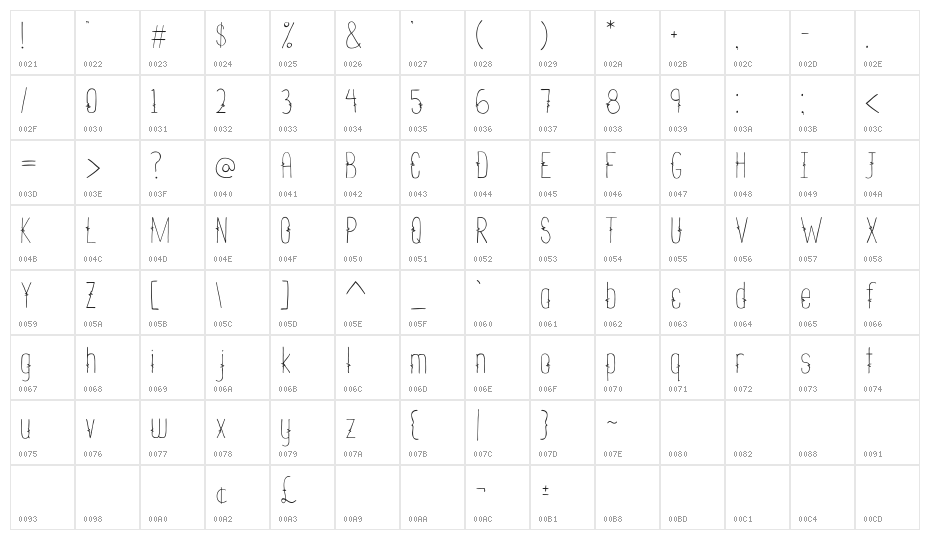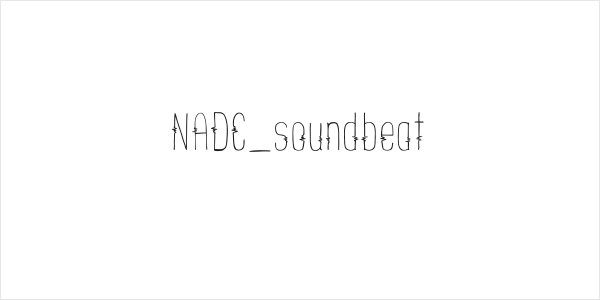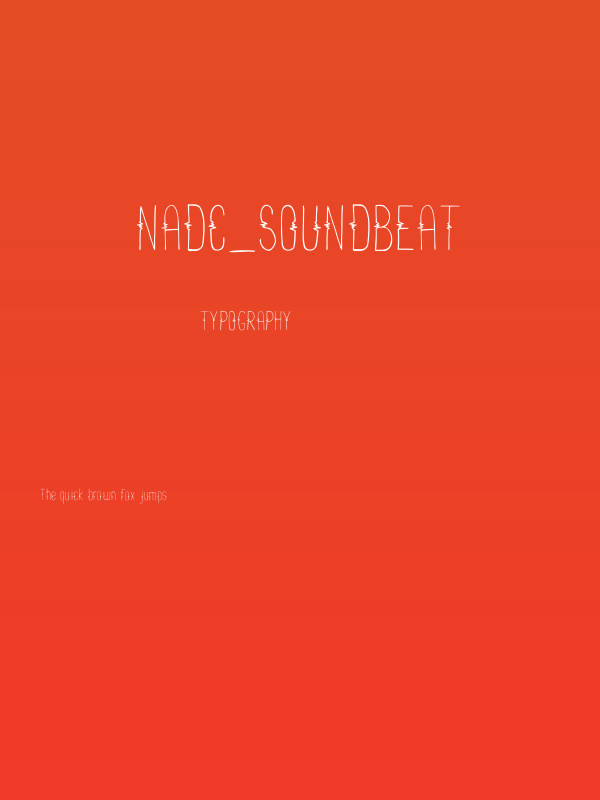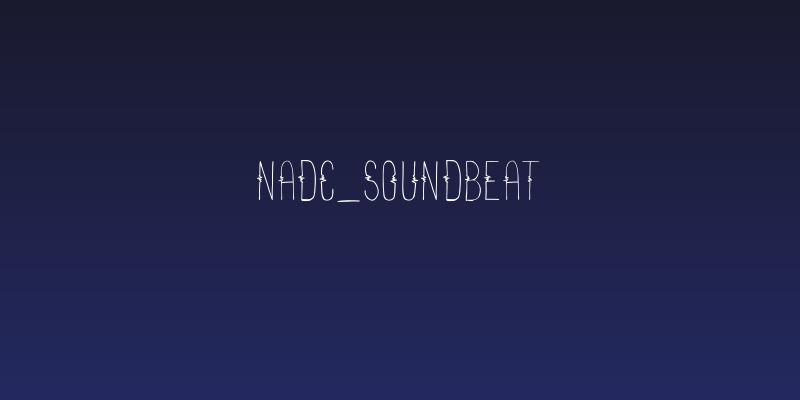
NADC_soundbeat Font
NADC_soundbeat Description
This font features a unique and creative design with a modern twist. Each character is adorned with a waveform-like pattern running through the center, giving it a dynamic and energetic appearance. The letters are tall and slender, with a consistent stroke width that maintains a clean and minimalist look. The uppercase and lowercase letters share a similar style, ensuring uniformity across the typeface. Numbers and special characters are also included, each maintaining the distinctive waveform motif. This font is perfect for projects that require a contemporary and edgy feel.
| Proposed Projects | Ideal for music-related branding, album covers, event posters, and modern digital media. |